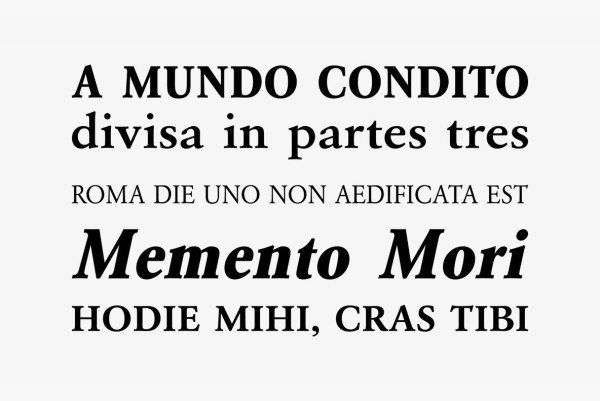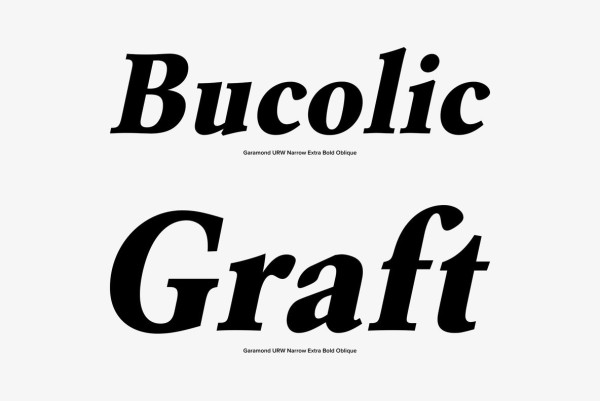
Garamond Font
Garamond Font – Its’ no surprise that typography enthusiasts prize Garamondas one of their top choices. The credit goes back to its namesake – an acclaimed French punch cutter named Claude Garamond. Its hard not to admire the gracefulness and legibility that come with this fonts design that never seems out of date even with changing times. No wonder it has maintained its mass appeal over periods of evolution from print materials earlier to electronic means today!
The roots of Garamond tracing back to the sixteenth century in Paris where Claude Garamond crafted an array of distinctive fonts that would take on his namesake today. His creation drew influence from Renaissance letterforms known for their delicately modulated lines alongside graceful curves and symmetrical proportions. These typefaces won acclaim due to their aesthetic beauty combined with exceptional readability leading them to become staples in book printing alongside pamphlet production.
Garamonds’ original designs underwent numerous adaptations and reinterpretations by various type designers and foundries over time. Their objective was to express the essence of Garamondacross different technologies and typographic standards. These efforts have resulted in several variations of Garamondthat are currently available – each possessing unique qualities that set it apart from others.
Incorporating notable refinements that improve readability on current printing platforms, “Garamond Premier Pro,” developed by Robert Slimbach and publicized by Adobe Systems in 2005, honors the celebrated legacy of this classic typeface. The digital representation is heavily inspired by the earlier version but incorporates a more sophisticated approach that enhances its use considerably in modern times. By capturingGaramond’s intrinsic styling with enhanced versatility without undermining its traditional charm, it has secured a place as one of the best interpretations to date.